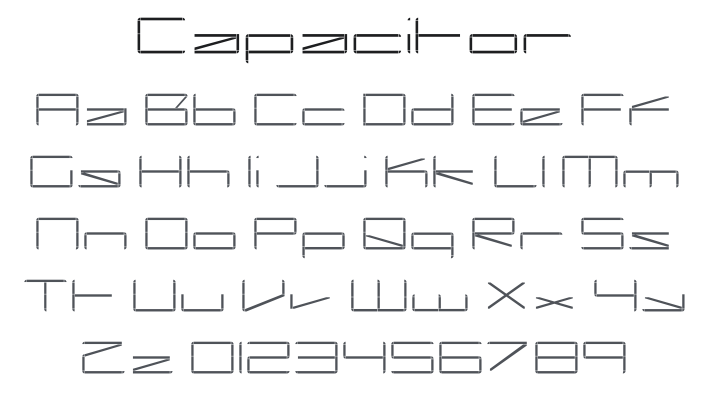
Capacitor Font
About Capacitor
Capacitor is a wide, segmented LCD/LED display typeface built on a broader matrix than typical segmented fonts, giving each character a spacious, electronic readout quality. Its clean digital geometry works best at smaller sizes to create textural, tech-flavored headlines. Perfect for scoreboards, digital interfaces, retro-tech posters, electronics branding, and any design channeling that classic LED display aesthetic.